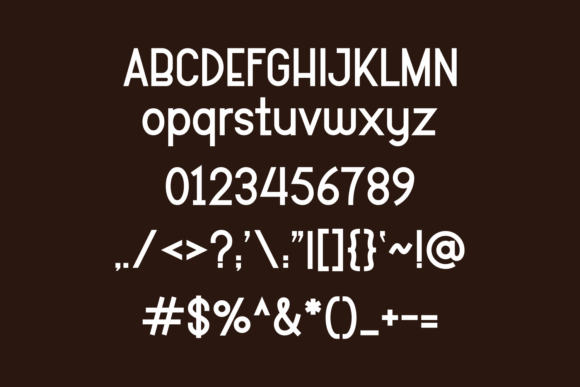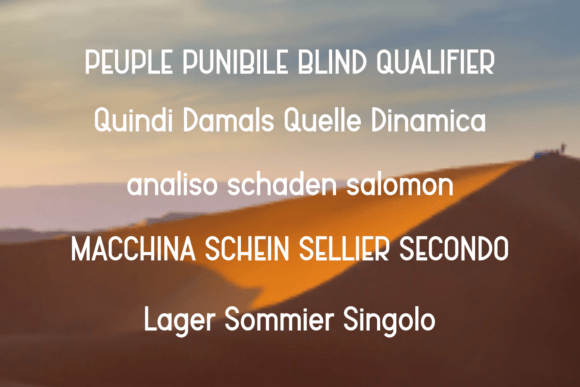
Introduction to Heribun Font
Have you ever been working on a creative project and felt like something’s missing, like a secret ingredient that would elevate your design to the next level? That’s exactly what happened to me when I stumbled upon the Heribun Font. As a designer, I’m always on the lookout for high-quality design resources that can help me bring my ideas to life.
With its unique sans serif style and transparent background, the Heribun Font is an absolute game-changer. Not only does it add a touch of sophistication to any design, but it’s also incredibly versatile – making it perfect for a wide range of creative projects. And the best part? You can download it for free, making it an invaluable asset to any designer’s library.
Whether you’re a seasoned pro or just starting out, the Heribun Font is a valuable addition to any design arsenal. Its clean lines, modern feel, and free download make it a must-have for any creative project.
Key Features of Heribun Font
- Heribun Font is a high-quality, free design resource ideal for creative projects.
- It features a transparent background, allowing for seamless integration with various design elements.
- Heribun Font comes in a single font size, making it suitable for a wide range of applications.
- With a high resolution of 300 DPI, this font ensures crisp and clear text rendering.
- It’s perfect for designers looking for a unique and elegant font to enhance their creative project’s visual appeal.
Honest Review: Heribun Font
I recently had the chance to work with the Heribun Font, and I must say it’s a fantastic addition to any designer’s toolkit. This high quality design resource is perfect for creatives working on a wide range of projects, from logos to typography-based artworks.
What works well with the Heribun Font is its transparent background, making it easy to integrate into any design. The font itself is versatile and can be used in a variety of contexts, from formal to informal settings.
- ✨ Wide Character Set: The Heribun Font includes a comprehensive set of characters, including punctuation and special characters.
- ✨ Easy to Read: The font is designed to be easy on the eyes, making it perfect for long blocks of text.
However, there are a few limitations to keep in mind. The font is only available in a limited range of weights, which may limit its use in certain design contexts.
- ⚠️ Limited Weight Options: The Heribun Font is only available in a limited range of weights, which may not be suitable for all design projects.
Overall, I’m very impressed with the Heribun Font and would highly recommend it to any designer looking for a high quality, versatile font for their creative project.
Tips for Getting the Most Out of Heribun Font
Heribun Font is suitable for various design projects, including logos, posters, flyers, and presentations. Its high-quality design and transparent background feature make it an ideal choice for creative projects that require a unique and professional look.